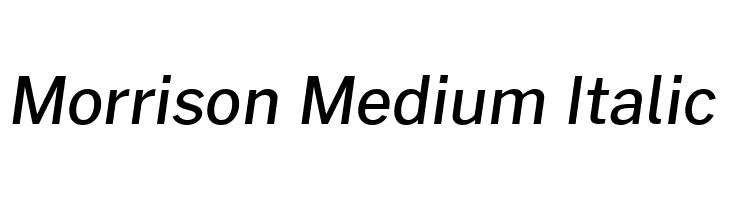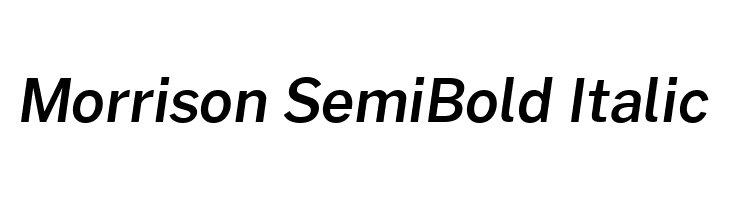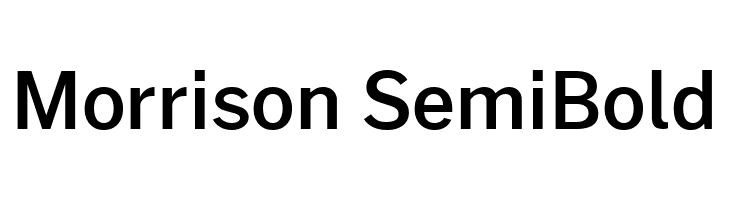
A modern, extra light sans-serif font with clean lines and low contrast.
A sleek, modern extra light italic font with elegant slanted characters.
A sleek, modern italic font with smooth curves and clean lines.
A clean, modern sans-serif typeface with uniform strokes and balanced spacing.
A sleek, modern, light italic font with smooth, low-contrast strokes.
A modern sans-serif font with clean lines and balanced proportions.
A modern, medium-weight italic font with sleek, dynamic characters.
A modern sans-serif typeface with a semi-bold weight and geometric design.
A sleek, semi-bold italic typeface with a modern and elegant style.
A modern, thin sans-serif font with clean lines and a minimalist aesthetic.